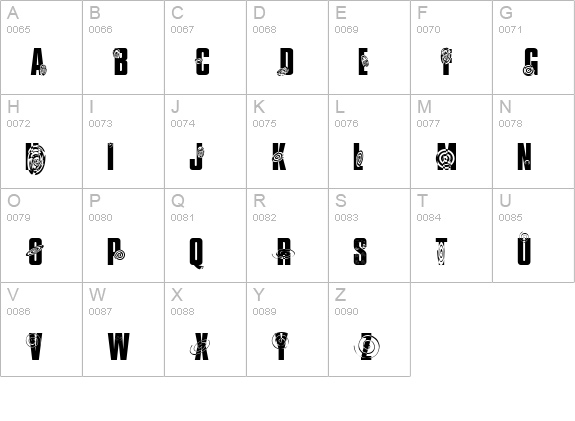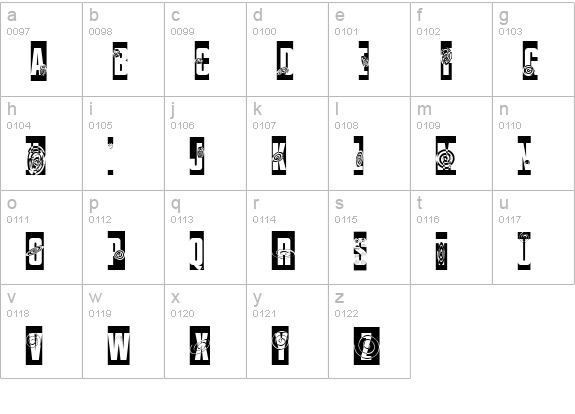
I SEE SPIRALS EVERYWHERE Font Details
Introducing the captivating and mesmerizing I SEE SPIRALS EVERYWHERE font, a true testament to the power of artistic expression and imagination. This unique and enchanting typeface is designed to evoke a sense of intrigue and wonder, as its intricate spiral motifs dance across each letterform. I SEE SPIRALS EVERYWHERE font is a visual delight, with its graceful curves and hypnotic patterns that effortlessly draw the viewer's attention. Each letter is meticulously crafted, showcasing the seamless fusion of elegance and creativity. Whether used for headlines, logos, or any creative project, this font is sure to leave a lasting impression. One of the most remarkable features of I SEE SPIRALS EVERYWHERE font is its versatility. It seamlessly adapts to different design styles, effortlessly enhancing the overall aesthetic of any project it is incorporated into. From whimsical and playful to sophisticated and refined, this font has the ability to transform any design into a work of art. And the best part? I SEE SPIRALS EVERYWHERE font is freely available to download at FontsMarket.com. This means that you can bring its captivating charm and artistic flair to your designs without any cost. Now, everyone can experience the beauty and magic that this font offers, regardless of their budget. So, why wait? Dive into the enchanting world of I SEE SPIRALS EVERYWHERE font and let your creativity soar. Discover the endless possibilities that this font brings to your designs, and be prepared to leave a lasting impression on your audience. Download it for free at FontsMarket.com and embark on a journey of artistic expression like never before.